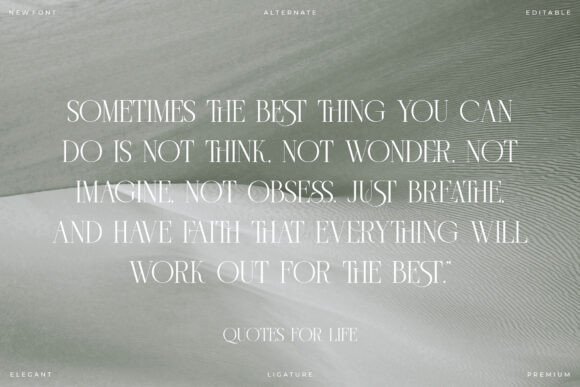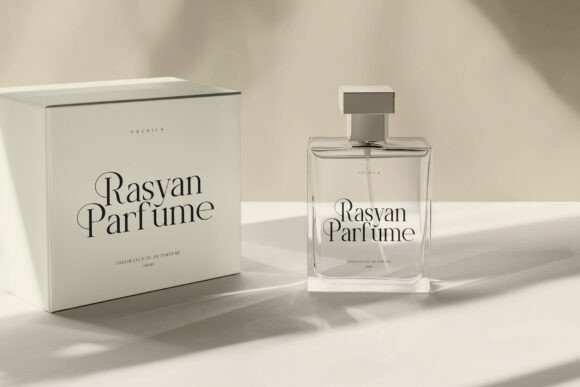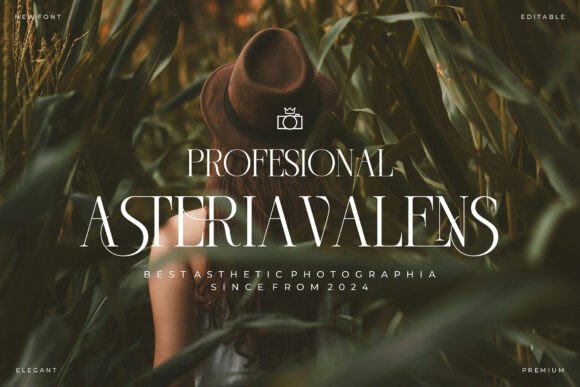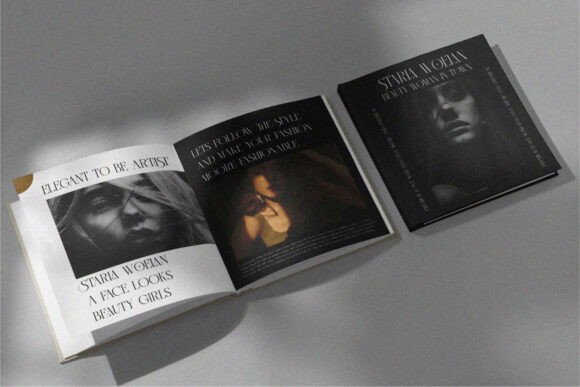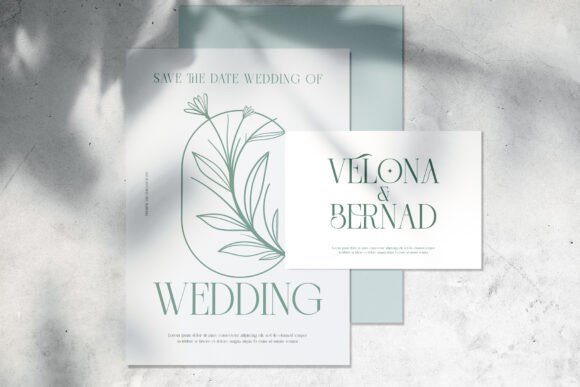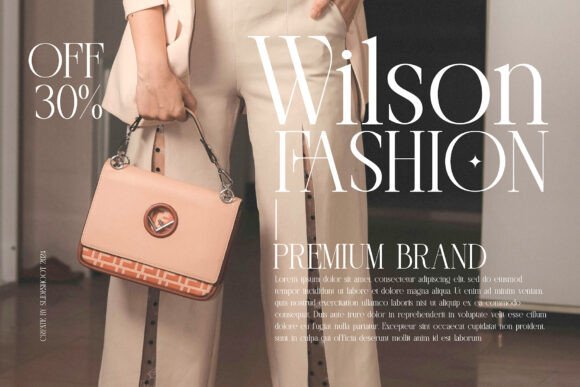
Introduction to New Essien Font
As designers, we’ve all been there – staring at a blank canvas, trying to bring our creative vision to life. The perfect font can make all the difference, elevating our designs from ordinary to extraordinary. That’s where the New Essien Font comes in – a refined serif font that exudes sophistication and elegance, making it the perfect addition to any design project.
Whether you’re working on a high-end branding project or a simple invitation card, the New Essien Font is a valuable resource for designers. Its stylish alternations and ligatures make it easy to create visually appealing designs that stand out from the crowd. And the best part? This beautiful font is available for free download, making it an accessible design resource for creatives of all levels.
With its high-quality design and transparent background, the New Essien Font is a versatile tool for any creative project. From movie titles to company logos, this elegant font is sure to add a touch of sophistication to your designs.
Key Features of New Essien Font
- High-quality, professional font suitable for creative projects and design resources.
- Unique, modern design with a clean and elegant aesthetic, making it perfect for a variety of design projects.
Honest Review: New Essien Font
As a designer, I was excited to try out the New Essien Font, a high-quality font that promises to be a great addition to any design project. With a transparent background, this font is perfect for creative projects that require a clean and modern look.
What works well: ✨ The New Essien Font has a unique and stylish design that sets it apart from other fonts. It’s perfect for headings and titles, and its modern aesthetic makes it ideal for digital design projects. I also appreciate that it’s available for free download, making it a valuable resource for designers on a budget.
What doesn’t work well: ⚠️ While the font is high-quality, it’s not suitable for body text. The letterforms can be quite ornate, making it difficult to read in smaller sizes. Additionally, the font lacks a bold weight, which can limit its use in certain design contexts.
Overall, I’m impressed with the New Essien Font, but it’s not a one-size-fits-all solution. If you’re looking for a stylish font for headings and titles, this is a great choice. Just be aware of its limitations and use it accordingly.
- Unique and stylish design
- Perfect for headings and titles
- Not suitable for body text
- Lacks a bold weight
How to Use New Essien Font
Tips for Getting the Most Out of New Essien Font
Experiment with different font sizes and styles to create visual interest in your design. Use the font in combination with other design elements to create a cohesive look. Consider pairing the New Essien Font with a bold or italic font for added emphasis.
Common Use Cases for New Essien Font
The New Essien Font is ideal for use in creative projects such as logos, brochures, and social media graphics. Its high-quality design makes it perfect for use in professional settings, such as business presentations and marketing materials.